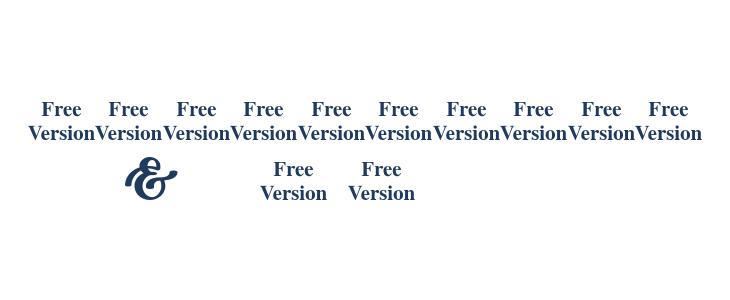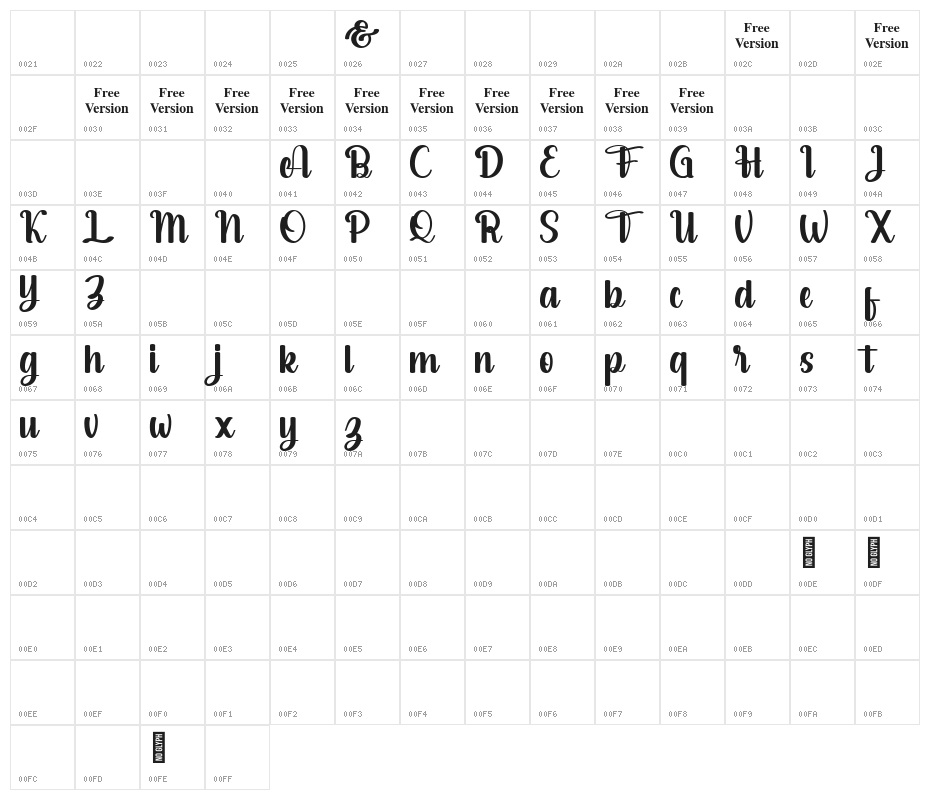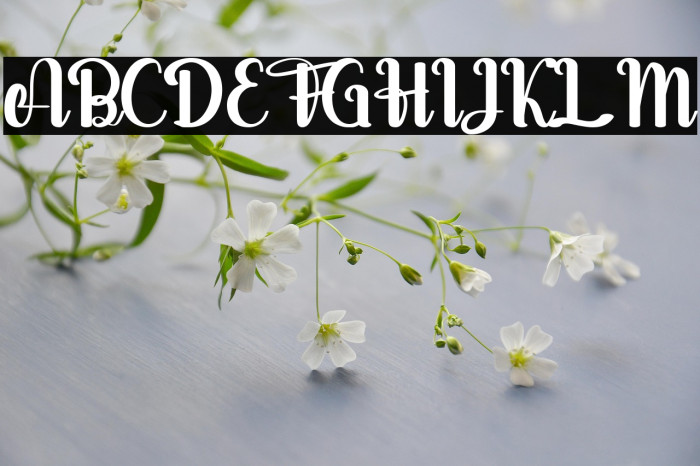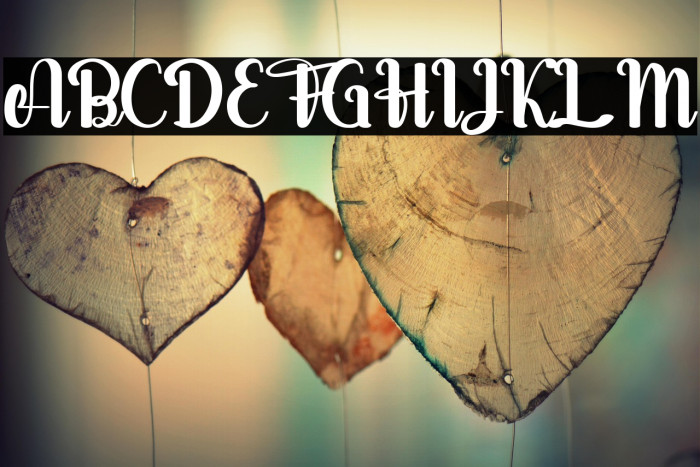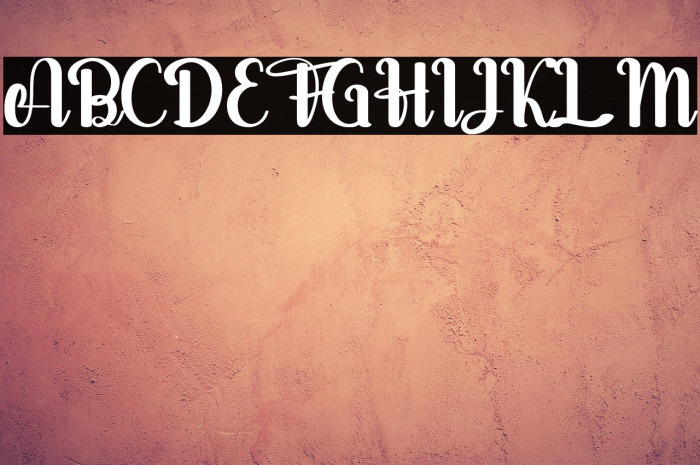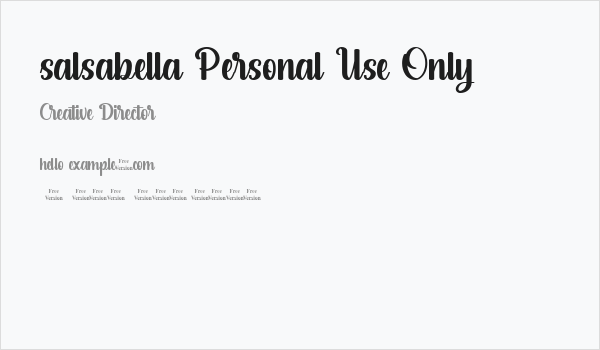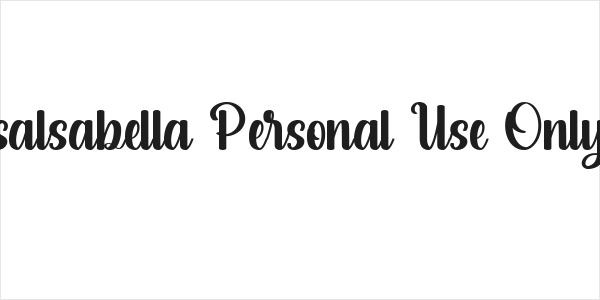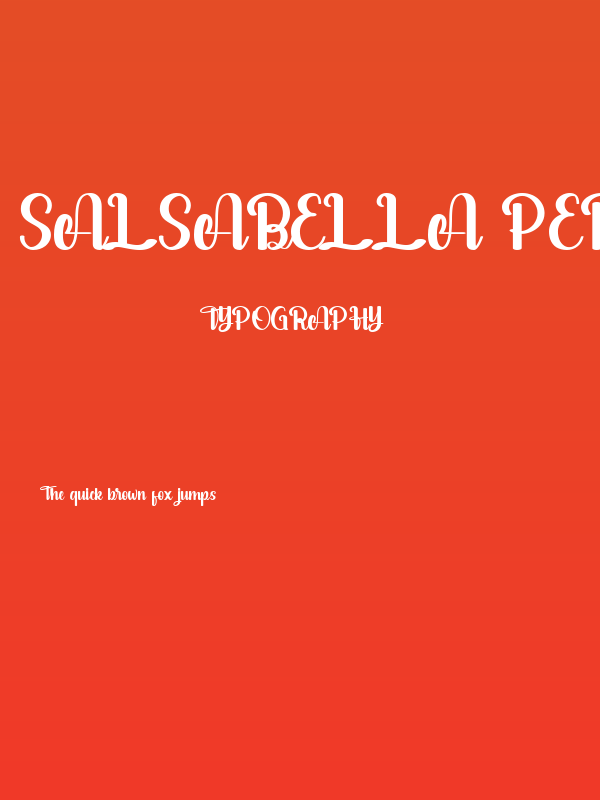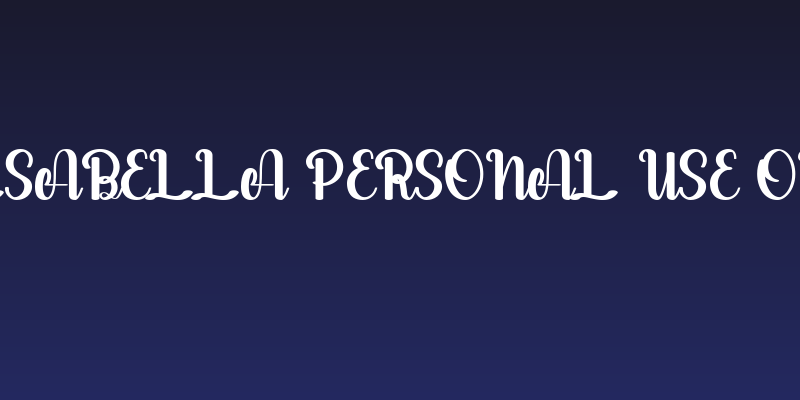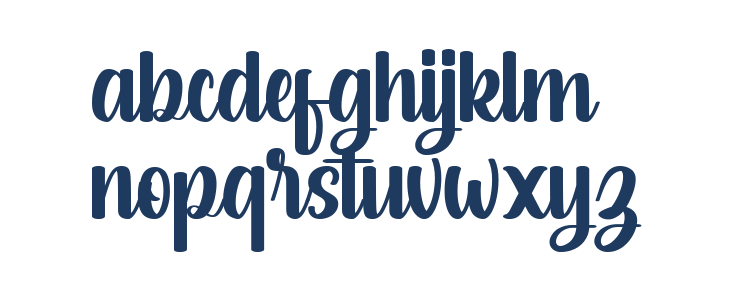
salsabella Personal Use Only Font
salsabella Personal Use Only Description
This font features a decorative and elegant script style with flowing, interconnected letters. The uppercase letters are ornate, with intricate loops and flourishes, giving a sense of sophistication and flair. The lowercase letters maintain a consistent style, with smooth curves and a slightly bold appearance, enhancing readability while retaining a stylish look. The numerals and special characters are designed to match the overall aesthetic, ensuring a cohesive appearance across all text elements.